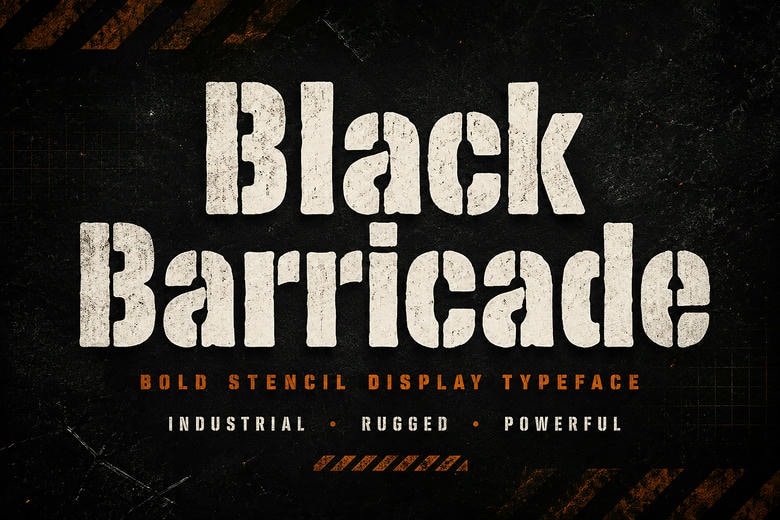
Black Barricade Font
Black Barricade is a bold stencil display font made for designs that stand out. It draws inspiration from military markings, industrial signs, construction barriers, and urban style. Its strong letter shapes and real stencil cuts give your work a striking look.
Black Barricade is perfect for bold headlines and statement text. It looks strong and confident but is still easy to read. Use it for posters, branding, clothing, packaging, album covers, or promo graphics to give your project an industrial edge and a unique style.
Black Barricade Display Font